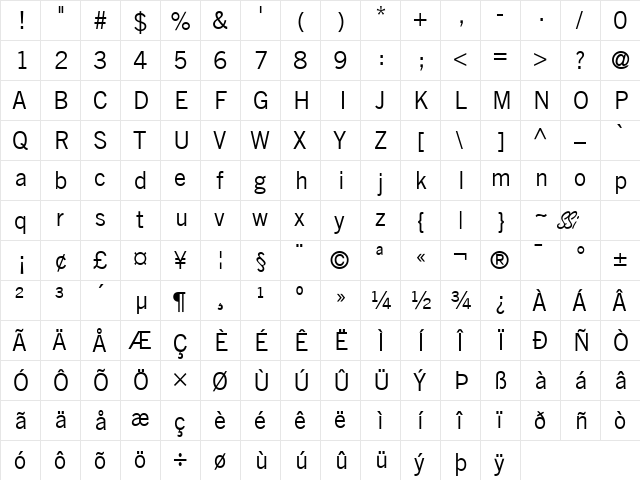
Commerce SSi Regular
Design Context for Commerce SSi Typeface
Commerce SSi takes a measured approach to typography — its balanced proportions and neutral character make it a reliable workhorse for both digital and print work.